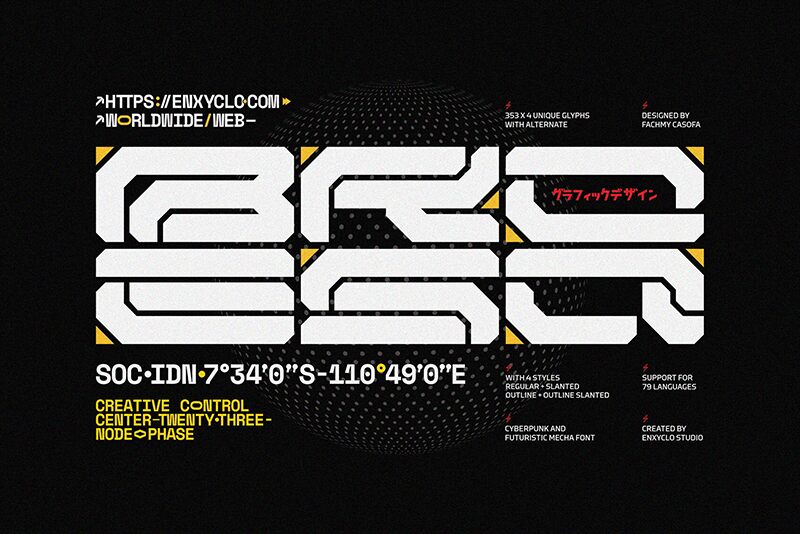
NCL Broesq Demo
NCL Broesq font by Enxyclo Studio is a futuristic display typeface with an expanded design. This techno-inspired font showcases geometric and angular shapes which create a cohesive and appealing pattern. With clean lines, the contemporary resource is built for applications centered on technology, sci-fi themes, adventure, and passion.
Appeal to fans of superhero comics when you use NCL Broesq for covers or inside within the comic itself. Create pins and badges designs inspired by video games or use it for website branding purposes making every header pop through calls to action. Use it on advertisements as well where innovation can stand out in magazines displaying cutting-edge digital devices even when presented from the printed page!